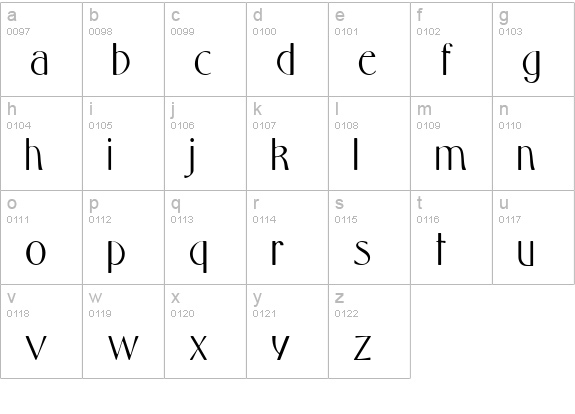
Toque Display SSi Font Details
Toque Display SSi font is a modern and stylish typeface that exudes sophistication and elegance. With its clean lines and sharp edges, this font is perfect for adding a touch of professionalism to any design project. Its bold and eye-catching appearance makes it ideal for headlines, titles, and branding materials. What sets Toque Display SSi font apart is not only its sleek design but also the fact that it is available for free. Yes, you read that right! This fantastic font can be downloaded completely free of charge at FontsMarket.com. With just a few clicks, you can have this incredible font at your fingertips, ready to be used in your creative endeavors. Whether you are a graphic designer, a content creator, or simply someone who appreciates beautiful typography, Toque Display SSi font is a must-have in your font collection. Its versatility allows it to be effortlessly incorporated into various design projects, from posters and flyers to websites and social media graphics. With Toque Display SSi font, you can easily captivate your audience with its unique and distinctive style. Its bold and commanding presence demands attention and leaves a lasting impression. Whether you are aiming for an elegant and sophisticated look or a bold and modern aesthetic, this font has got you covered. Don't miss out on the opportunity to enhance your designs with this incredible font. Download Toque Display SSi font for free today at FontsMarket.com and elevate your creative projects to new heights.